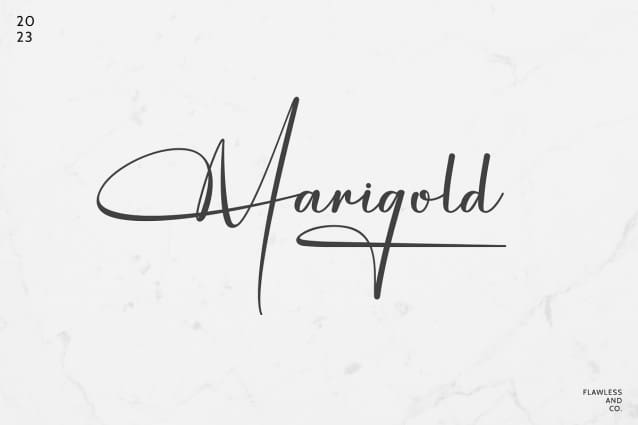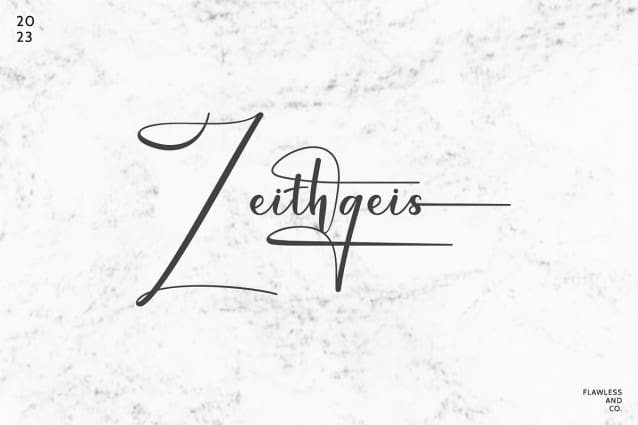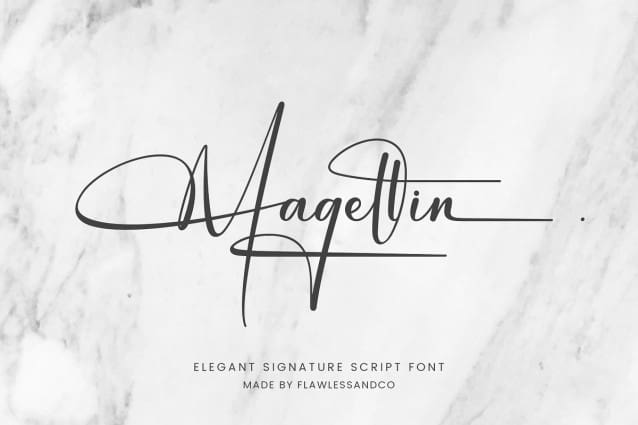
Magellin Script Font
Magellin Script Font – An Elegant Signature Script Font. Unlock the allure of elegance and sophistication with “Magellin,” an exquisite signature script font that adds a touch of grace and style to your designs. With its fluid lines and timeless charm, “Magellin” is designed to convey a sense of refined elegance and personal touch.